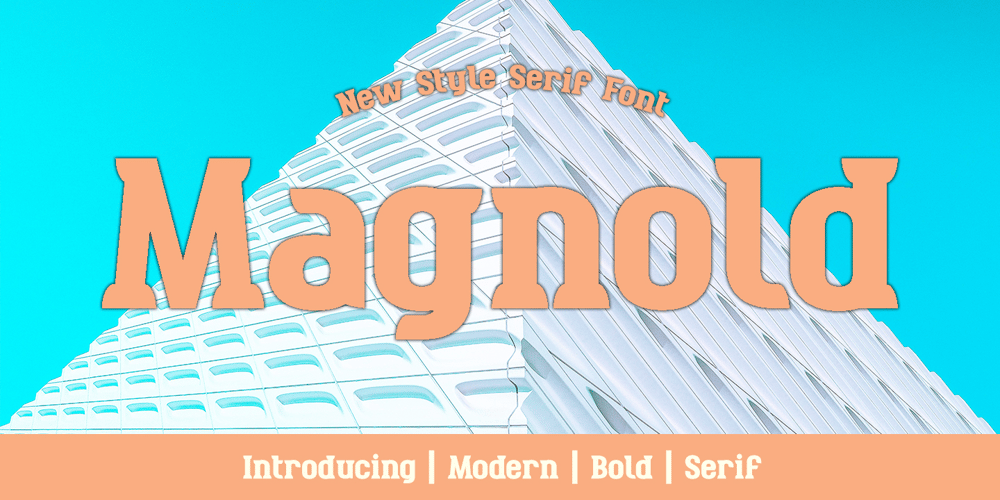
Magnold
Magnold font
Magnold Font Family was designed by Hajid Hikmatiyar and published by Hikhcreative. Magnold contains 4 styles and family package options. Magnold is a modern bold and elegant serif font. Magnold is well-suited for advertising, branding, logotypes, packaging, titles, headlines and editorial design.